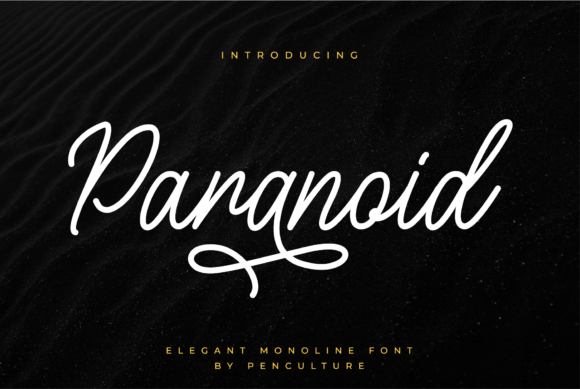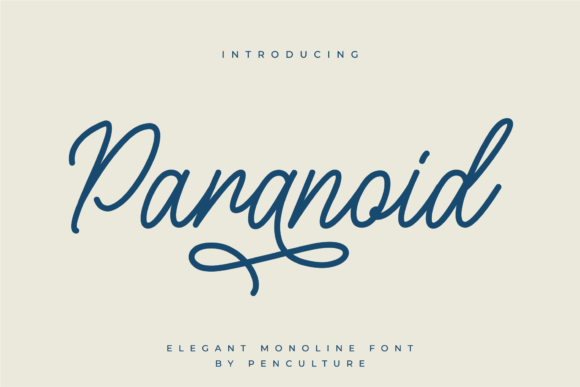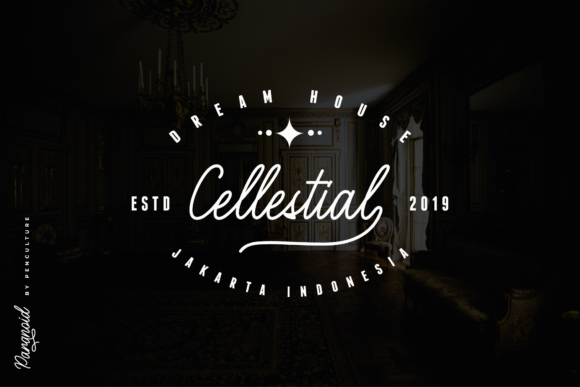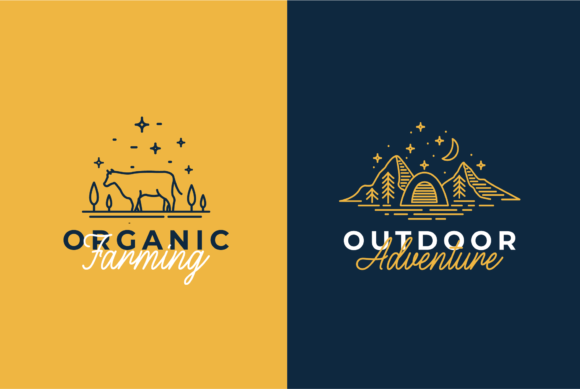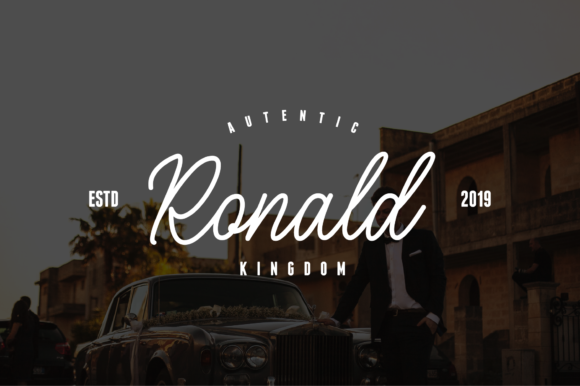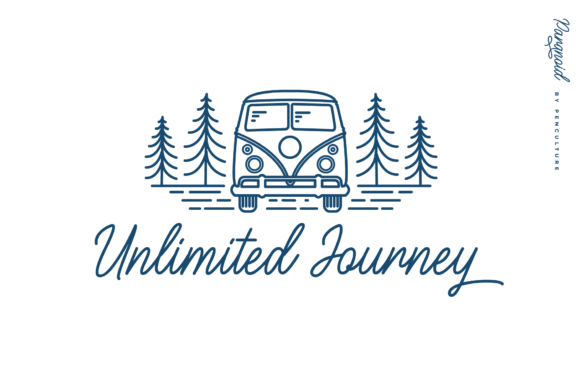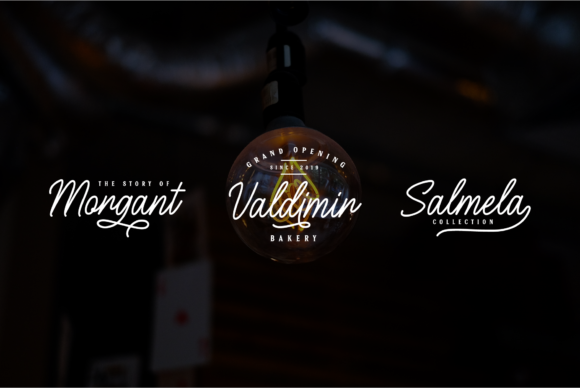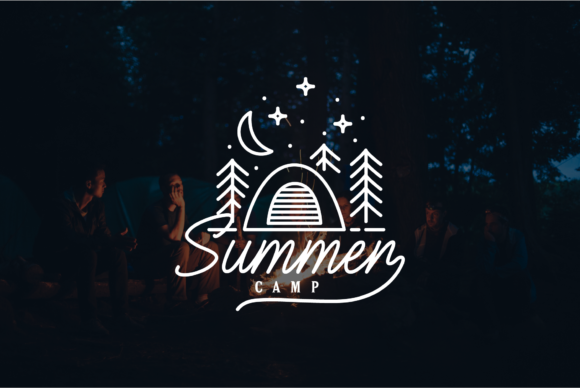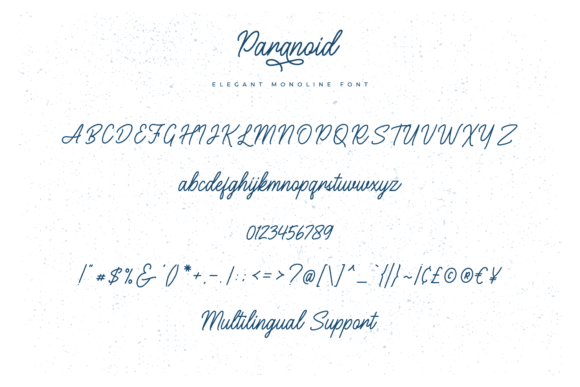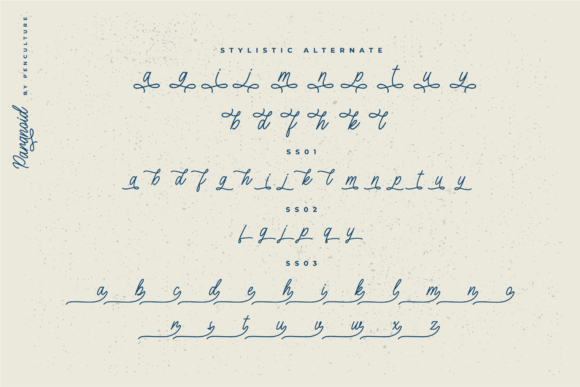
Paranoid Font
About Paranoid Font
Paranoid is an elegant mono line font that comes with various kinds of alternates. It will add a great touch to any crafting project.